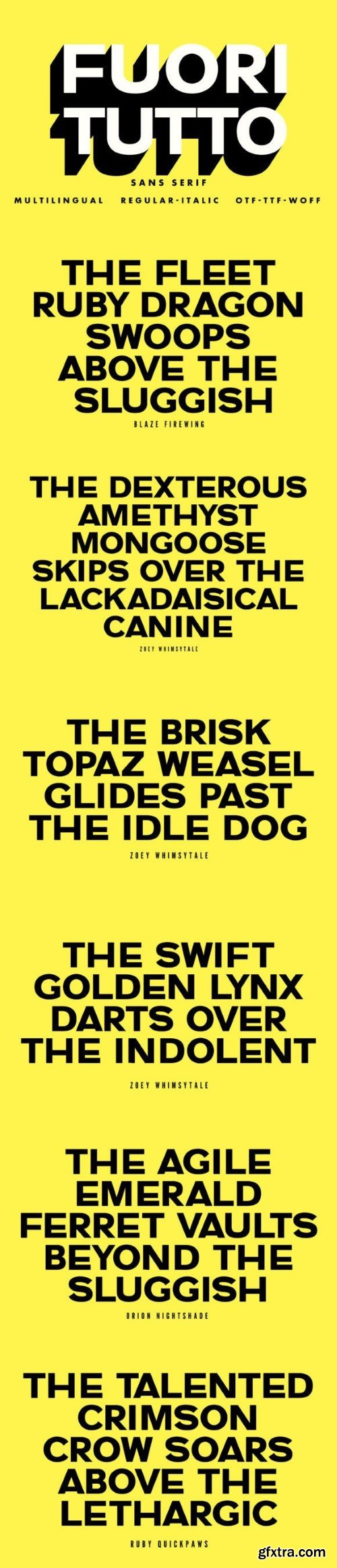
Southiya - MElevate your designs with the sleek sophistication of “Fuori Tutto,” a minimalist sans serif typeface that effortlessly embodies the essence of clean lines and geometric precision. Crafted for the contemporary creator, this typeface stands as a testament to the art of simplicity, breathing life into your projects with its distinct modern flair. With each character meticulously sculpted, “Fuori Tutto” champions the power of subtlety. Its flawlessly balanced proportions create an enchanting rhythm, ensuring your text flows seamlessly across every canvas, whether it’s a sleek website, captivating logo, or elegant print material.odern Calligraphy Font